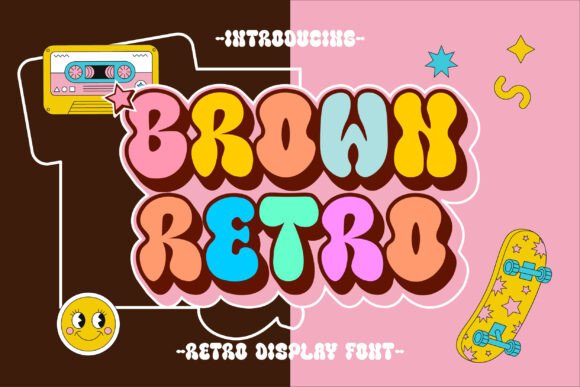
Brown Retro Font: A Timeless Vintage Display Font for Your Creative Projects
Are you a designer or crafter looking for a font that can add a touch of classic nostalgia to your creative projects? Look no further than the Brown Retro Font, a captivating vintage-style display font that invokes the timeless spirit of yesteryears. With its fanciful curves and strikingly bold lines, this font conveys an atmosphere of nostalgia, harking back to the undeniable charm of bygone elegance.
The Characteristics of Brown Retro Font
Brown Retro Font carries its own notable character, imbuing a pinch of caprice into any venture. Its unique blend of curves and lines creates a distinctive look that is sure to grab attention. The font’s bold lines and fanciful curves give it a sense of sophistication and elegance, making it perfect for use in posters, logos, and artistic headings.
Uses of Brown Retro Font
Brown Retro Font impeccably frames posters, logos, and artistic headings, infusing each letter with an irresistible hint of retro panache. Whether you’re designing a vintage-style poster, a logo for a retro-themed business, or a heading for a blog post, this font is sure to add a touch of classic charm to your design.
As a designer or crafter, you’re always on the lookout for new and exciting ways to express your creativity. Brown Retro Font is the perfect addition to your font collection, offering a unique and versatile way to add a touch of nostalgia to your designs. Whether you’re creating digital content or working on a craft project, this font is sure to inspire your creativity and help you produce stunning results.
The Benefits of Using Brown Retro Font
So why choose Brown Retro Font for your creative projects? Here are just a few benefits of using this amazing font:
- Unique and distinctive look: Brown Retro Font has a one-of-a-kind look that’s sure to grab attention and add a touch of personality to your designs.
- Versatile: This font can be used in a wide range of creative projects, from posters and logos to headings and digital content.
- Timeless appeal: The vintage-style design of Brown Retro Font ensures that it will never go out of style, making it a great investment for your font collection.
To get the most out of Brown Retro Font, try experimenting with different design styles and techniques. Here are a few tips to get you started:
- Pair with bold colors: Brown Retro Font looks amazing when paired with bold, bright colors. Try using it with a bold red or blue to create a striking contrast.
- Add texture and patterns: Adding texture and patterns to your design can help to enhance the vintage feel of Brown Retro Font. Try using it with a distressed or vintage-style background.
- Experiment with different sizes: Brown Retro Font looks great in a variety of sizes, from large headings to smaller body text. Experiment with different sizes to find the one that works best for your design.
Brown Retro Font is a captivating vintage-style display font that’s perfect for designers and crafters looking to add a touch of classic nostalgia to their creative projects. With its unique blend of curves and lines, this font conveys an atmosphere of nostalgia and sophistication, making it perfect for use in posters, logos, and artistic headings. So why wait? Download Brown Retro Font today and unleash your creativity!
Unleash your creativity by incorporating this charming font to make your designs radiate with a dash of classic nostalgia. Whether you’re a seasoned designer or a crafter just starting out, Brown Retro Font is the perfect addition to your font collection.